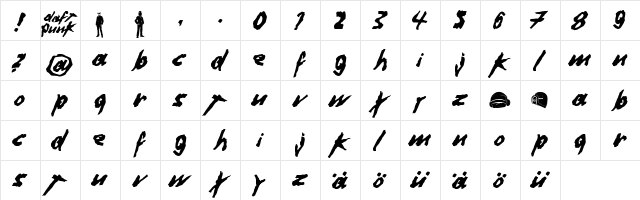
Dafter Harder Better Stronger Normal
| Foundry | Duncan Wick |
| Designer | Duncan Wick |
Design Context for Dafter Harder Better Stronger Typeface
Dafter Harder Better Stronger is a composed and adaptable typeface that performs quietly and consistently across a wide range of design contexts.